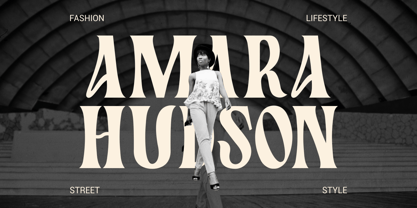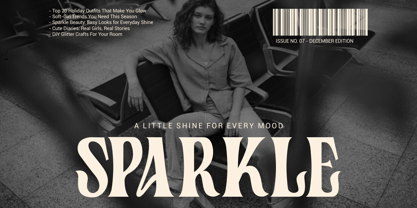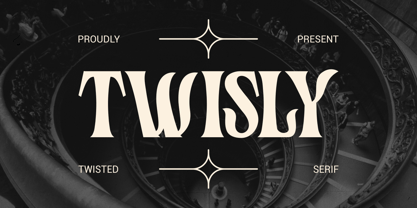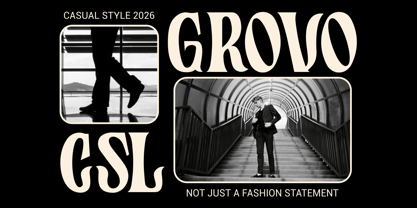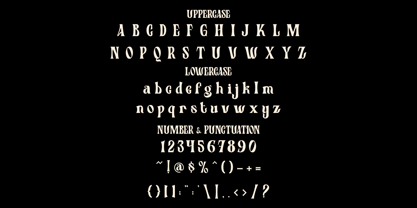
Twisly
by Shanaf
The Twisly Font Family was designed by Yesie Erma Yunita and published by Shanaf. Twisly contains 1 styles. More about this family
Twisly Twisted Serif Font is a modern display serif with distinctive curved distortions and elegant structure. The letterforms feature high contrast between thick stems and thin strokes, creating a refined visual rhythm. Each character appears tall with slightly condensed proportions and sharp vertical emphasis. The serifs are stylized with subtle twists and unconventional curves, adding a unique personality. Some terminals extend with soft bends that create a flowing yet structured appearance. The stroke transitions feel smooth but controlled, balancing elegance and artistic expression. Twisly Twisted Serif Font blends classic serif tradition with a contemporary experimental touch. The design communicates sophistication, style, and creative confidence. It works effectively for logos, editorial titles, and premium branding. The twisted serif structure creates a distinctive tone for fashion and lifestyle design projects. Designers can use this typeface for logo design, magazine headlines, and branding systems. It fits perfectly with themes related to fashion, luxury products, and modern editorial layouts. The tall proportions and high contrast strokes ensure strong visibility in large formats. Twisly Twisted Serif Font also works well for posters, book covers, packaging labels, and advertising materials. It suits branding for beauty brands, creative studios, luxury services, and boutique businesses. The expressive letterforms help build a memorable and stylish visual identity. This typeface supports both elegant and experimental design directions.
Designers: Yesie Erma Yunita
Foundry: Shanaf